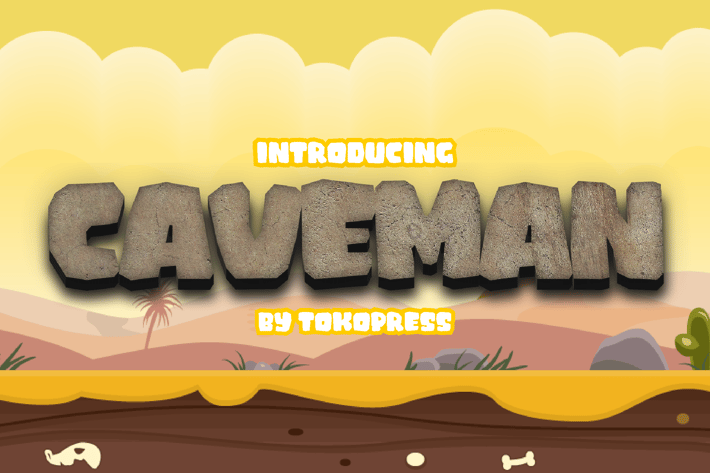
Caveman - Gaming Font
CAVEMAN - Prehistoric Font
Caveman is a bold, prehistoric-inspired display font crafted for designers who want a rugged, adventure-ready vibe. Featuring chiseled curves, chunky letterforms, and uneven baseline playfulness, Caveman combines cartoonish flair with visual weight—making it perfect for tribal themes, retro gaming, or kid-friendly projects.
Its energetic, handmade feel and strong geometric weight give it an instantly recognizable character, ideal for loud titles, animated headers, and bold packaging. With its thick structure and tactile personality, Caveman bridges storytelling and style in a visually dynamic way.
Perfect for gaming, YouTube thumbnails, poster designs, and educational materials, Caveman delivers the visual punch needed to grab attention and inspire curiosity. Whether you're building a game UI, crafting a prehistoric kids book, or launching a quirky brand, this font injects a sense of fun, grit, and primeval charm.
Designers creating retro adventure content, dinosaur-themed illustrations, or toy packaging will find Caveman the perfect partner to bring their concept to life with visual impact.
Why Caveman Stands Out :
- Chunky Primitive Style: Brings ancient themes to life with playful modern readability
- Perfect for Kids & Gaming: Adds excitement and character to branding or user interfaces
- Eye-Catching Display Form: Ideal for attention-grabbing titles, headers, and signs
- Natural, Rough Edges: Mimics rock carvings and tribal aesthetics with a clean digital finish
- Strong Visual Identity: Great for brands wanting a fun, bold, and unconventional look